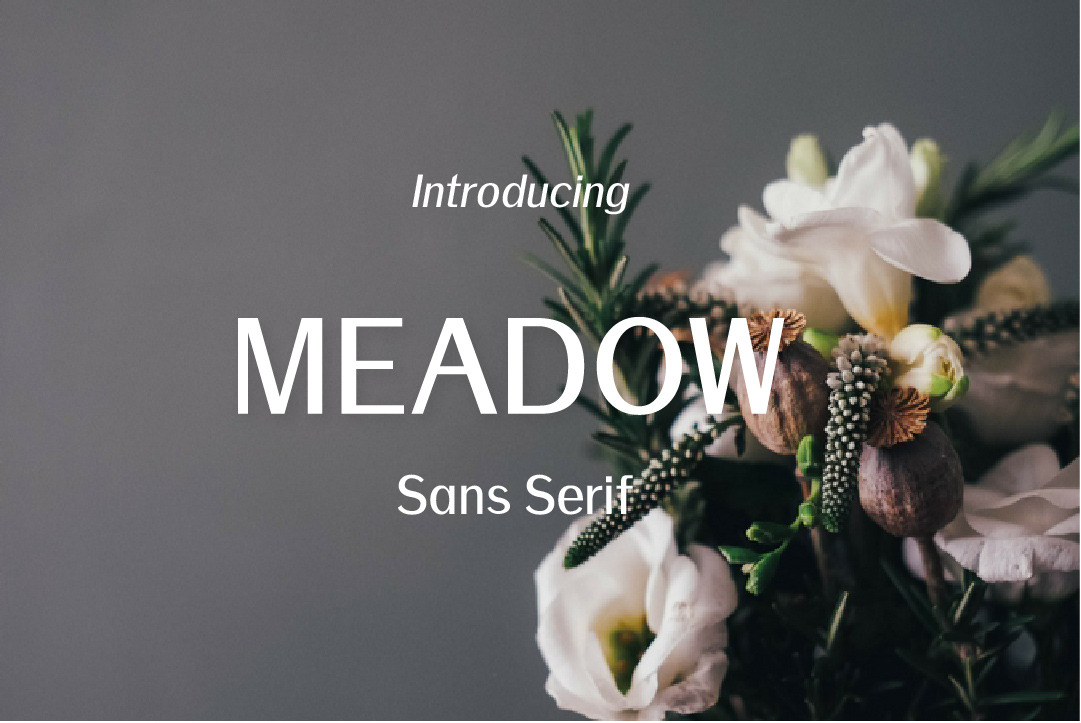
Meadow-Sans Serif font family
Meadow is beautiful sans serif font family, it comes in 6 variants.
Meadow include:
- Bold, Bold Italic, Semi Bold, Semi Bold Italic, Regular and Light.
- Multilingual Letters